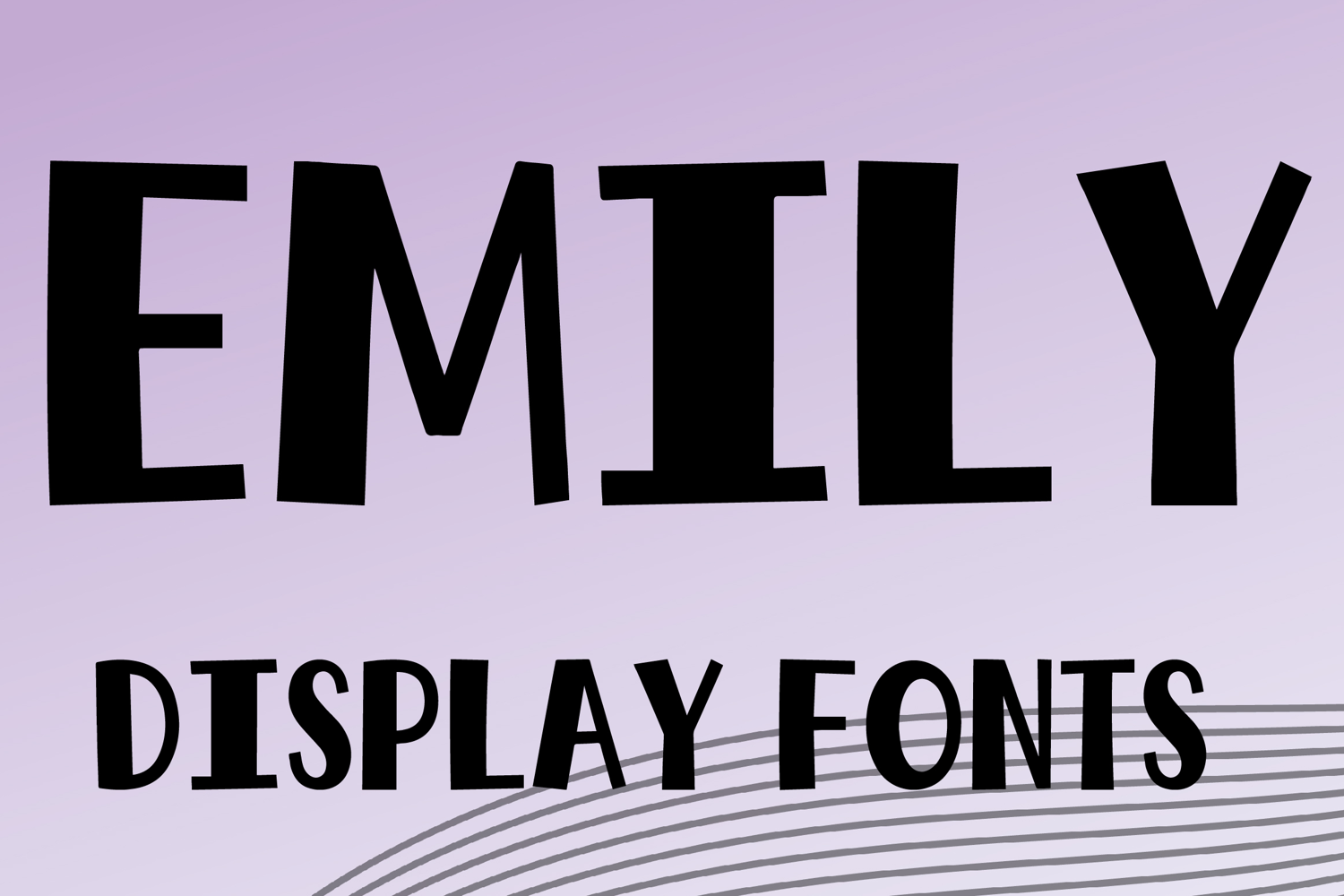
EMILY
EMILY is a bold display font with a tall handcrafted style and strong modern character. Its uppercase letterforms feature thick strokes, slightly uneven edges, and clean structured shapes that create a confident, stylish, and eye-catching look. Designed with uppercase letters A–Z and numbers 0–9, EMILY is perfect for branding, posters, packaging, logos, headlines, social media graphics, and creative projects that need a bold and memorable statement.